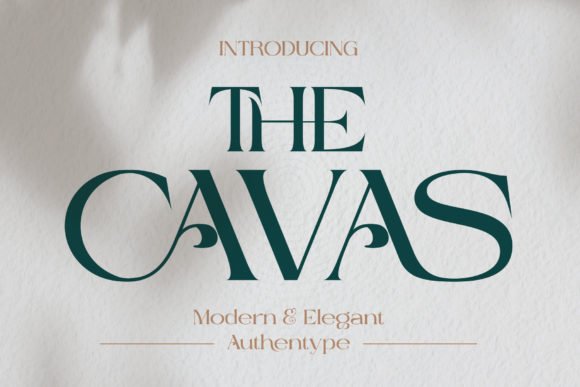
Have you ever stared at a blank canvas, waiting for the perfect font to bring your design to life? It’s that moment of hesitation, when the right choice can make all the difference between a good design and a great one. That’s exactly what happened when designers first laid eyes on Cavas Font – a modern and elegant serif font that’s as versatile as it is sophisticated.
Cavas Font is more than just a typeface; it’s a tool designed to elevate your creative projects. Its discretionary ligatures give each word a unique shape, adding a touch of personality to every design. Whether you’re working on a logo, poster, or promotional material, Cavas Font is the perfect companion to help you convey your message with style and finesse.
- Unique Characteristics: Designed with a modern, elegant aesthetic and a wide range of language support
Cavas Font Review
- Unique Aesthetic: Cavas Font has a distinctive and modern aesthetic that is sure to stand out. The combination of geometric and organic elements creates a visually interesting and unique look.
- High-Quality Renditions: The font’s high-quality renditions make it perfect for digital and print use. The crisp lines and smooth curves ensure that your text will always look sharp and clean.
- Comprehensive Character Set: Cavas Font includes a comprehensive character set, making it suitable for a wide range of languages and applications.
- Over-Reliance on Geometric Elements: While the geometric elements in Cavas Font are visually appealing, they can sometimes feel overwhelming. This might make the font feel too busy or cluttered in certain contexts.
- Lack of Expressiveness: Some users might find that Cavas Font lacks the expressiveness and personality of more traditional or serif fonts.
Cavas Font is a solid choice for designers looking for a modern and unique aesthetic. While it may not be perfect, its strengths far outweigh its limitations. With some careful consideration and usage, Cavas Font can be a valuable addition to your design toolkit.
Getting the Most Out of Cavas Font
To get the most out of Cavas Font, experiment with different font sizes, colors, and styles to create visually appealing designs. Use Cavas Font in combination with other fonts to create a unique and eye-catching visual identity.
Cavas Font is commonly used for:
- Body text in creative projects
- Brand identity and logos